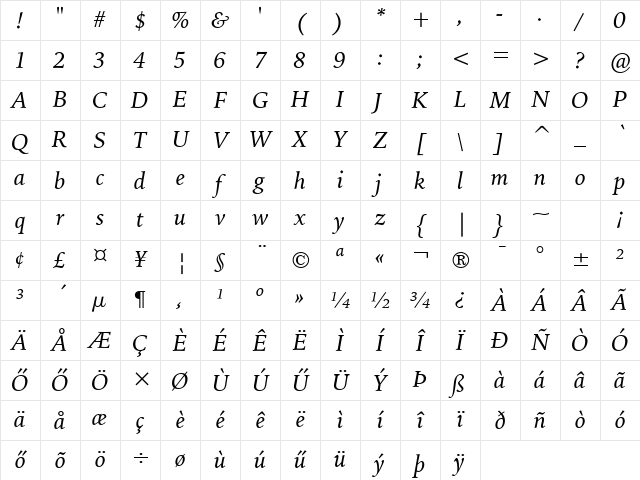
BiowanOldStyle HU Italic
BiowanOldStyle HU Family
Design Context for BiowanOldStyle HU
BiowanOldStyle HU carries the refined structure of traditional serif typography, with bracketed terminals and considered proportions that communicate credibility and craft. The slanted form adds forward momentum and visual energy.
Pro Tip: Use BiowanOldStyle HU for editorial body copy and considered headline work. Pair with a neutral sans for UI elements or captions to create a classic hierarchy.